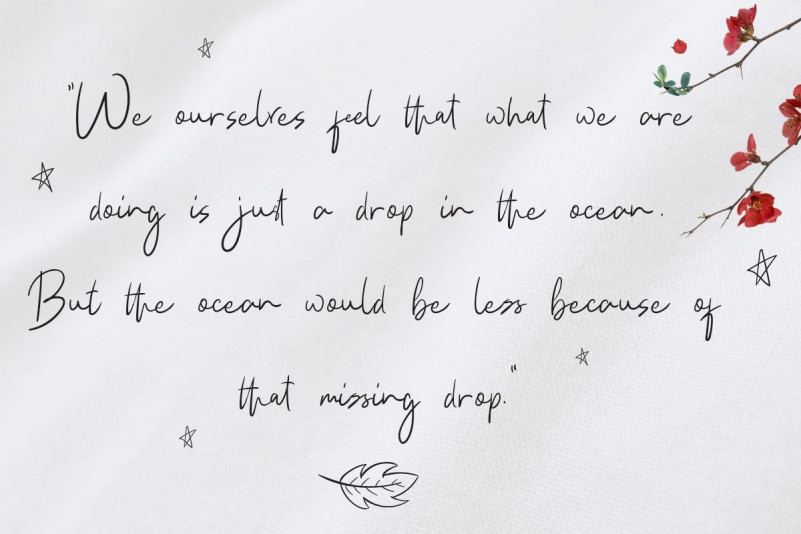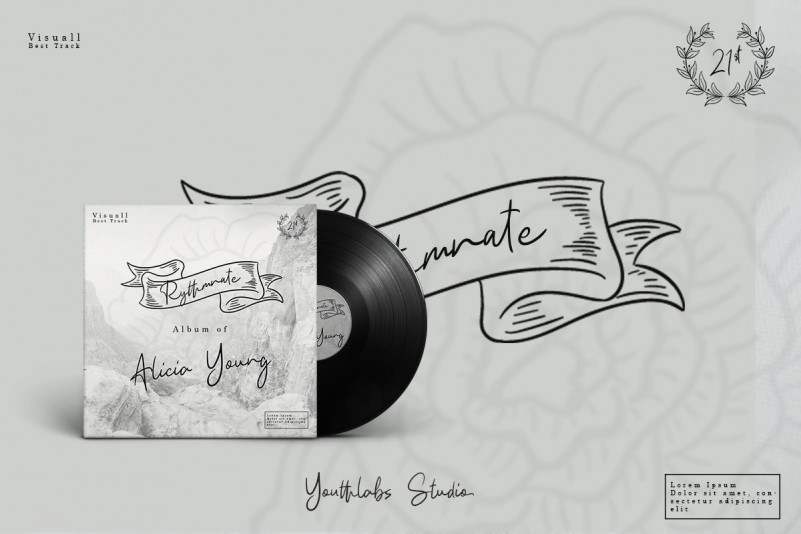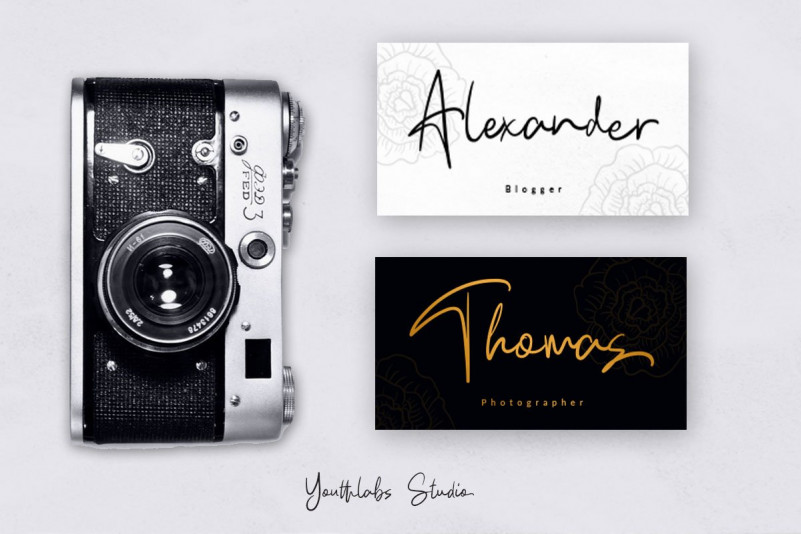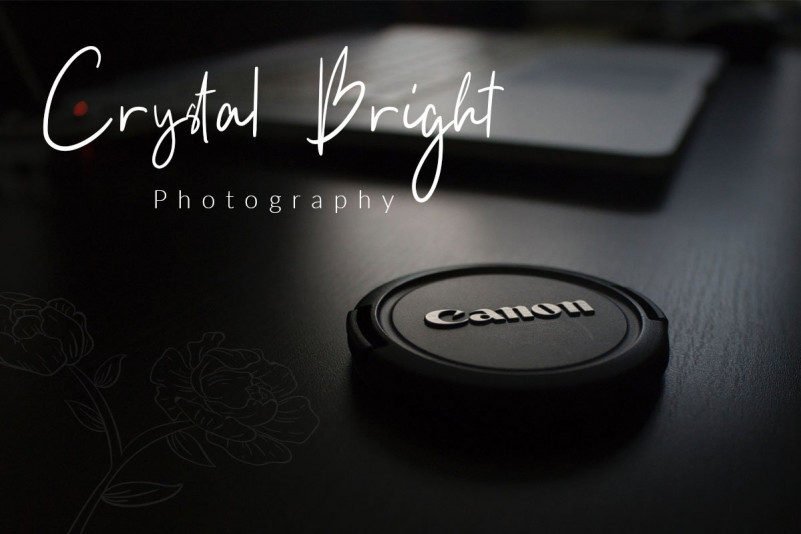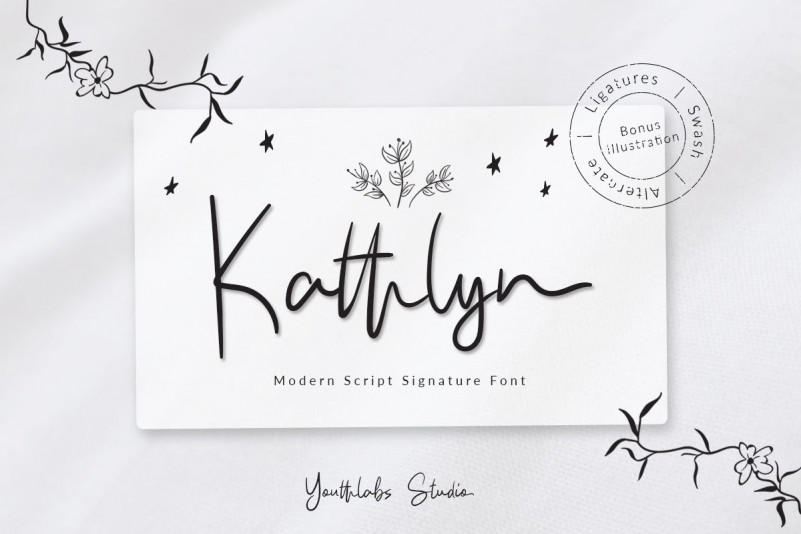
Kathlyn Signature Font
Kathlyn Signature Font – Free Demo
Say hello to Kathlyn Font! This font is especially for you if you need to add tenderness to your project. Give your designs an authentic handcrafted feel. Kathlyn Signature Font – A modern and elegant handwriting font script with various thickness 🙂 Kathlyn font was created to look real handwritten signature script by 271 Opentype Glyphs, Alternate, Ligature, and Swashes. Kathlyn higly recomended use to wedding project, letter, book, card and it’s perfect use into logotype and many various of design project.